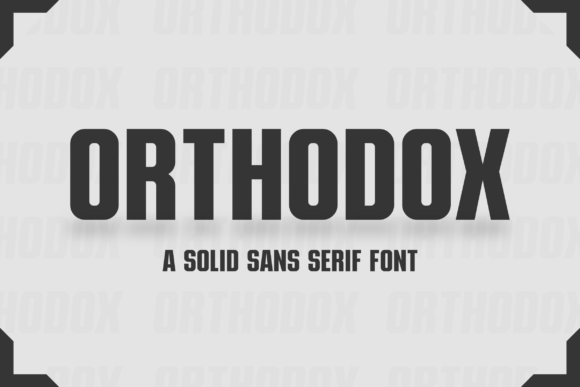
Prepare yourself to be captivated by Orthodox Font, the epitome of visual impact and typographic prowess. This sans serif masterpiece is meticulously crafted to elevate your designs, transforming them into captivating works of art.
Orthodox Font exudes a bold and confident demeanor, its all-caps design commanding attention like a symphony of thunder. Its clean lines and geometric precision lend an air of sophistication that will leave an unforgettable impression.
Its versatility knows no bounds – be it bold headlines that demand attention, striking quotes that inspire, or captivating designs that ignite imaginations, Orthodox Font is the perfect maestro to orchestrate your creative symphony. Let your words dance across the screen, each letter a testament to your discerning taste and impeccable style.
Unleash your creativity and dive into a world of possibilities with Orthodox Font. Its multilingual alphabet, embracing the nuances of most European languages, ensures that your message transcends borders and resonates with a global audience.
Dare to be bold, dare to be different – Orthodox Font is the ultimate weapon in your design arsenal. Embrace its power and watch your designs soar to new heights of brilliance.